How to Make a Font Thicker on Cricut
This tutorial is perfect if you're a beginner in Cricut Design Space, have found the perfect thin font, and want to know how to make a font thicker in Cricut Design Space. We'll go over how to do that with the Cricut offset feature.
How to Make a Font Thicker in Cricut Design Space
Let's see how to make lines thicker in Cricut Design Space. One of the ways to thicken a font is by using the offset Cricut feature with a very slight offset. Here's how to do it.
Step 1
Here is some text I've added to my current project using the Text option. I am using a gorgeous script font, Marthina Script, from Envato Elements, which we'll use in this outline font for Cricut tutorial. I have also identified many gorgeous fonts that work perfectly with this method that you can use at the end of this tutorial.
Step 2
Make sure you have the word selected, and the word Offset will no longer be greyed out, so you can now click on it. This is how we'll start using the offset Cricut feature to get thicker fonts.
Step 3
You can move the dot to make the offset bigger or smaller, but we need a little bit more control to make a font a bit thicker in Cricut Design Space.
Step 4
In order to control how to make lines thicker on Cricut, we need to select the numbers in the box and type a number we want to use. I used 0.04, but I would suggest trying a few different sizes to achieve the look you want.
Step 5
Now you can click Apply, and the offset will be applied, and you will have thickened a font in Cricut Design Space!
Congratulations! You've Learned How to Make a Font Thicker on Cricut
You have now successfully learned how to make a font thicker in Cricut Design Space and how to use Cricut offset in Design Space.
There are so many other perfect fonts on Envato Elements that we can apply this technique to. Many of them have beautiful flourishes that we can add (like the one we used in our example), so make sure to check out our article on how to add flourishes at the bottom of the page.
10 Top Thin and Thick Fonts for Cricut From Envato Elements
There are so many wonderful fonts that you can use to thicken using the offset Cricut feature, and many of these fonts have long, wispy flourishes. These are some of my favourites.
1. Sheiral (OTF & TTF)
This font has very even lines, is quite thin, and is a perfect candidate to convert to bold now that you know how to make a font thicker on Cricut.
2. Brightshine (OTF & TTF)
This font is perfect for flourishes as it has very thin, wispy lines which are hard to cut. This makes it perfect for bolding too. No need to look for think fonts for Cricut when you can make them yourself!
3. Halosene (OTF & TTF)
This font has even more wispy elements that are really tricky if you leave them so thin. But it is such a gorgeous font that we can't not use it, which is why making the letters thicker is so perfect.
4. Marthina (OTF & TTF)
This is the font we used in the tutorial—it's one of the best ones to use. These lines are extra thin, so making them bolder still makes this font super easy to read. Get thick fonts for Cricut in a flash.
5. Sweetyhearts (OTF & TTF)
Here's another stunning font with lots of wispy elements that are really hard to work with when the text is so thin.
6. Octavia (OTF & TTF)
This one has fewer wispy elements but is also spaced widely enough that you can easily make this one bolder without losing definition in the font. This pretty font works perfectly if you need bold Cricut fonts.
7. My Dear (OTF & TTF)
This font is perfect if you want to practice how to make a font thicker in Cricut Design Space. It's nice and thin, has some wispy elements, and has lines of even thickness.
There are many fonts that you can use to create bold fonts in Cricut Design Space. Another style of font that you can use is a type style font, which is very difficult to cut and use on your Cricut machine, so you need to be able to thicken these fonts in order to use them more easily. I want to show you some of my favourites:
8. Sunday Shine (OTF & TTF)
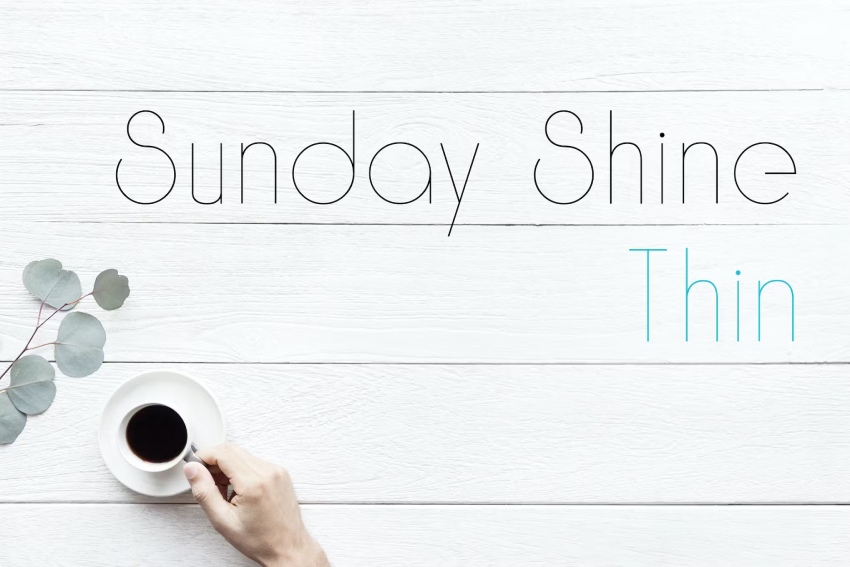
This font is very thin and will be very difficult to use, so thickening this font is one of the best ways to use it.
9. Laguna7 (OTF & TTF)
Laguna7 is a classical and universally understood font type. You can easily make this font thicker to get a different effect.
10. Jamie Woods (OTF & TTF)
This is a font with a little bit more movement and a natural element to it—also perfect to be bolded to get thick fonts for Cricut!